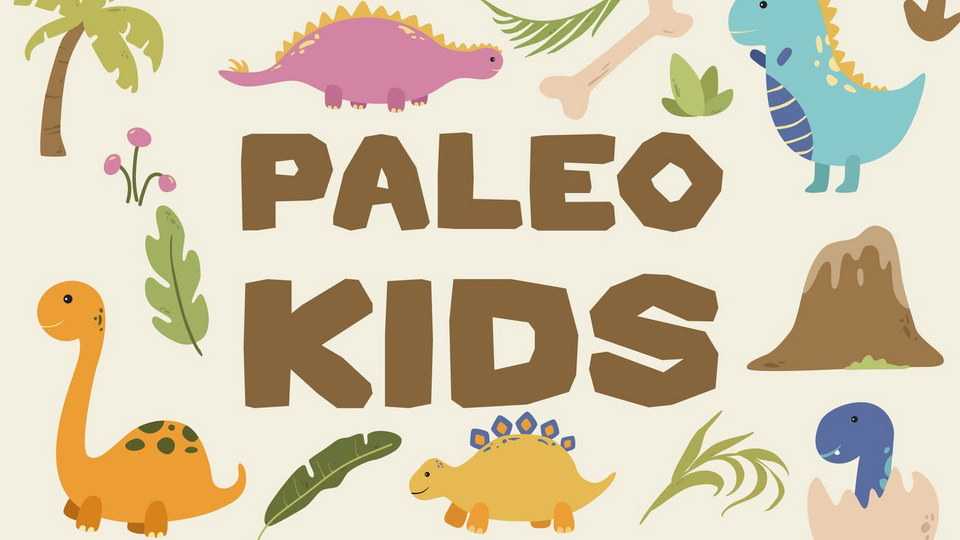
Download Paleo Kids font, a children typeface. Paleo Kids brings to the Jurassic era, the ice age where mammoth, caveman, sabre tooth, and dinosaur roams the world.